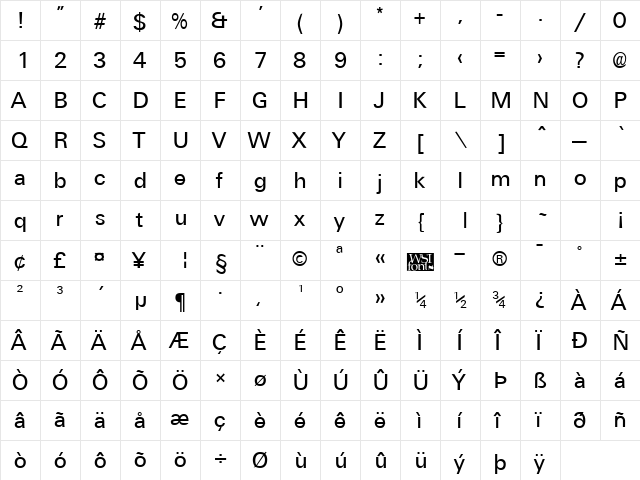
Universal Regular
Design Context for Universal Typeface
Universal takes a measured approach to typography — its balanced proportions and neutral character make it a reliable workhorse for both digital and print work.